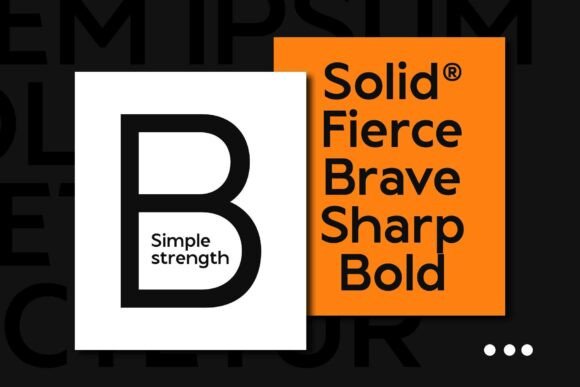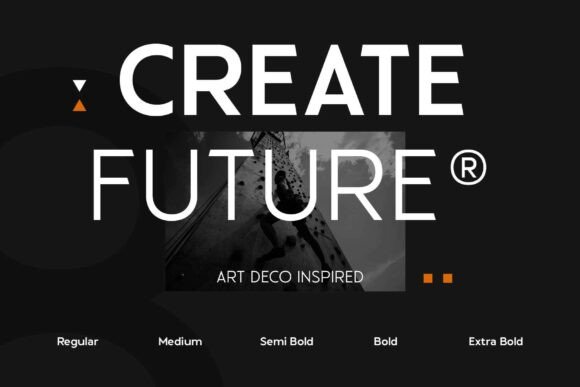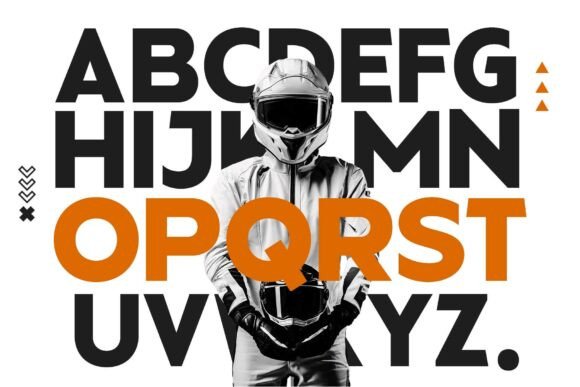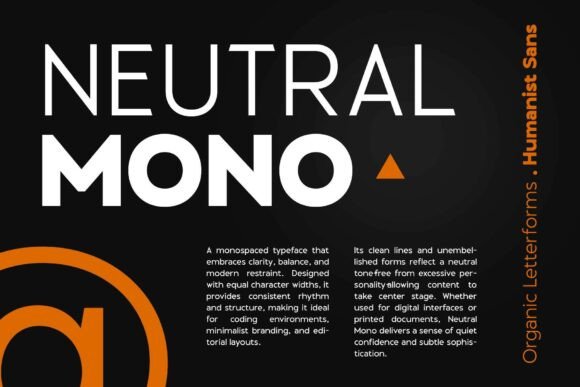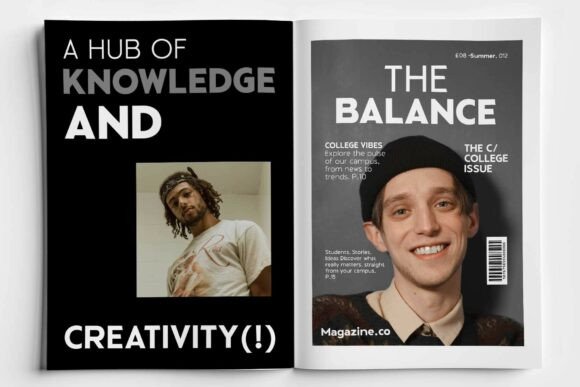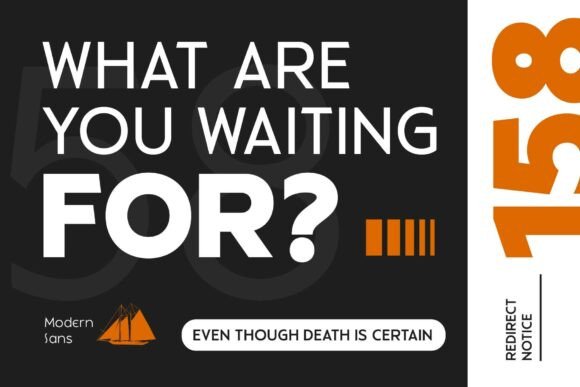
Introduction to Maurico Font
Have you ever been working on a creative project, staring at a blank screen, trying to find the perfect font to bring your vision to life? The right font can make all the difference, and that’s exactly what the Maurico Font is designed to do. With its sleek, geometric lines and clean letterforms, this sans serif font is sure to elevate your design and leave a lasting impression.
Whether you’re working on a high-profile branding project or a simple flyer, the Maurico Font is the perfect design resource to have in your arsenal. Its versatility and sophistication make it a valuable asset for designers, and its six weights from Regular to ExtraBold provide endless possibilities for customization. And the best part? You can download it for free, making it an accessible and high-quality addition to your design toolkit.
With the Maurico Font, you can create stunning designs that feature a transparent background, or use it to add a touch of modernity to your editorial layouts. Its stylish and contemporary feel is sure to make your designs stand out, and its futuristic vibe will keep you ahead of the curve. So why settle for a mediocre font when you can have the best? Try the Maurico Font today and take your design projects to the next level!
Key Features of Maurico Font
- Designed with a unique, modern aesthetic for a professional look
- Perfect for designers looking for a versatile and stylish font for their projects
Honest Review: Maurico Font
Maurico Font is a fantastic addition to any designer’s toolkit, offering a unique and creative project-ready font that can elevate even the most basic designs. Its high quality and versatility make it an excellent choice for designers looking for a reliable design resource.
- ✨ Beautifully crafted with a clean, modern aesthetic
- ✨ Supports a wide range of languages and characters
- ✨ Highly customizable, allowing designers to create unique and creative projects
- ⚠️ Limited to a transparent background, which may not be suitable for all design projects
- ⚠️ May not be the best choice for designers looking for a more traditional, serif font
Overall, I’m thoroughly impressed with Maurico Font. Its high quality, versatility, and affordability make it an excellent addition to any designer’s toolkit. Whether you’re working on a creative project or simply need a reliable design resource, Maurico Font is definitely worth checking out.
Can I customize Maurico Font to fit my design needs?
While Maurico Font is designed to be versatile and stylish, it’s not a customizable font in the classical sense. However, you can experiment with different font sizes, colors, and combinations to create unique and creative designs. Additionally, you can use font editors or design applications to modify the font’s spacing, kerning, or other properties to suit your design needs.